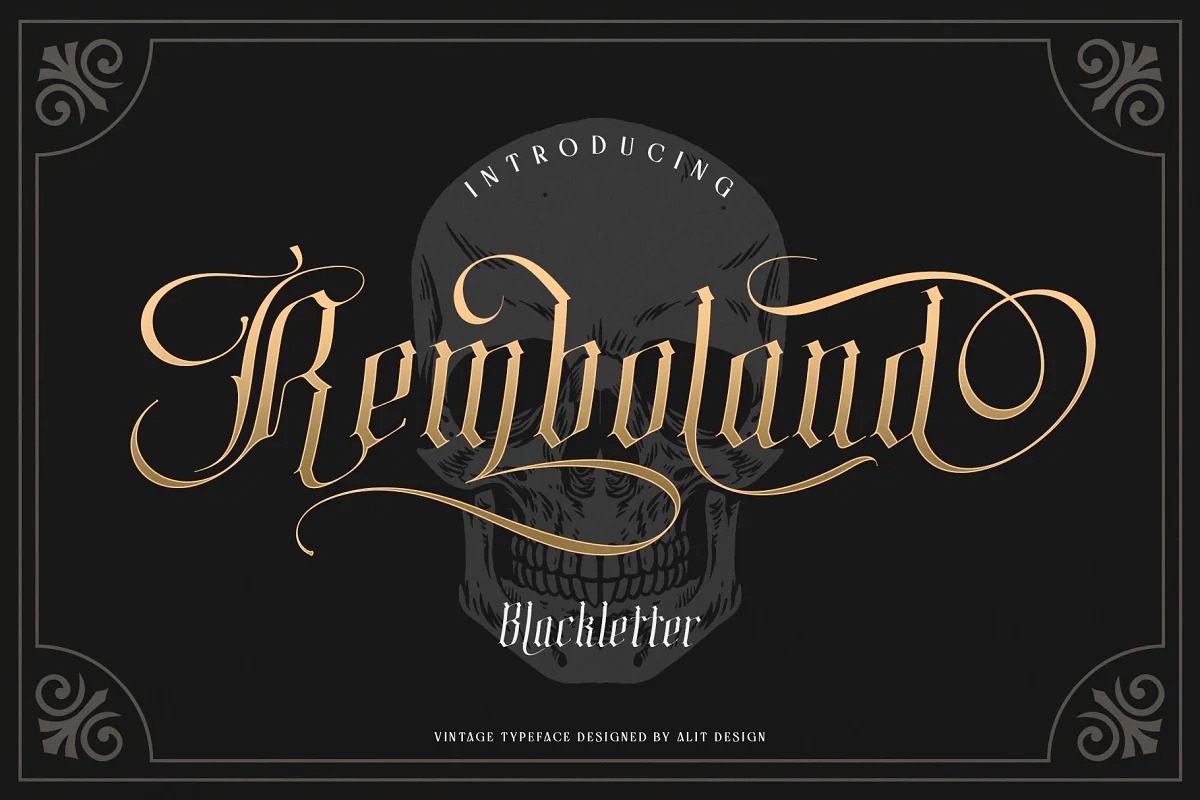
Remboland Font
Remboland Blackletter Font
This is Modern font with Esport style includes uppercase letters, numerals, a large range of punctuation and multilingual support. Supported by alternative options such as swash, ligature and alternative characters, making The Remboland Typeface Blackletter very easy to create designs with strong or dark themes. In addition, The Remboland Typeface Blackletter is also supported with multilingual characters that can be used in several international languages.
The Remboland Typeface is very suitable for use in making music album cover designs, tattoo logos, wishkey labels, packaging pomades and so on which are made with dark and strong concepts.